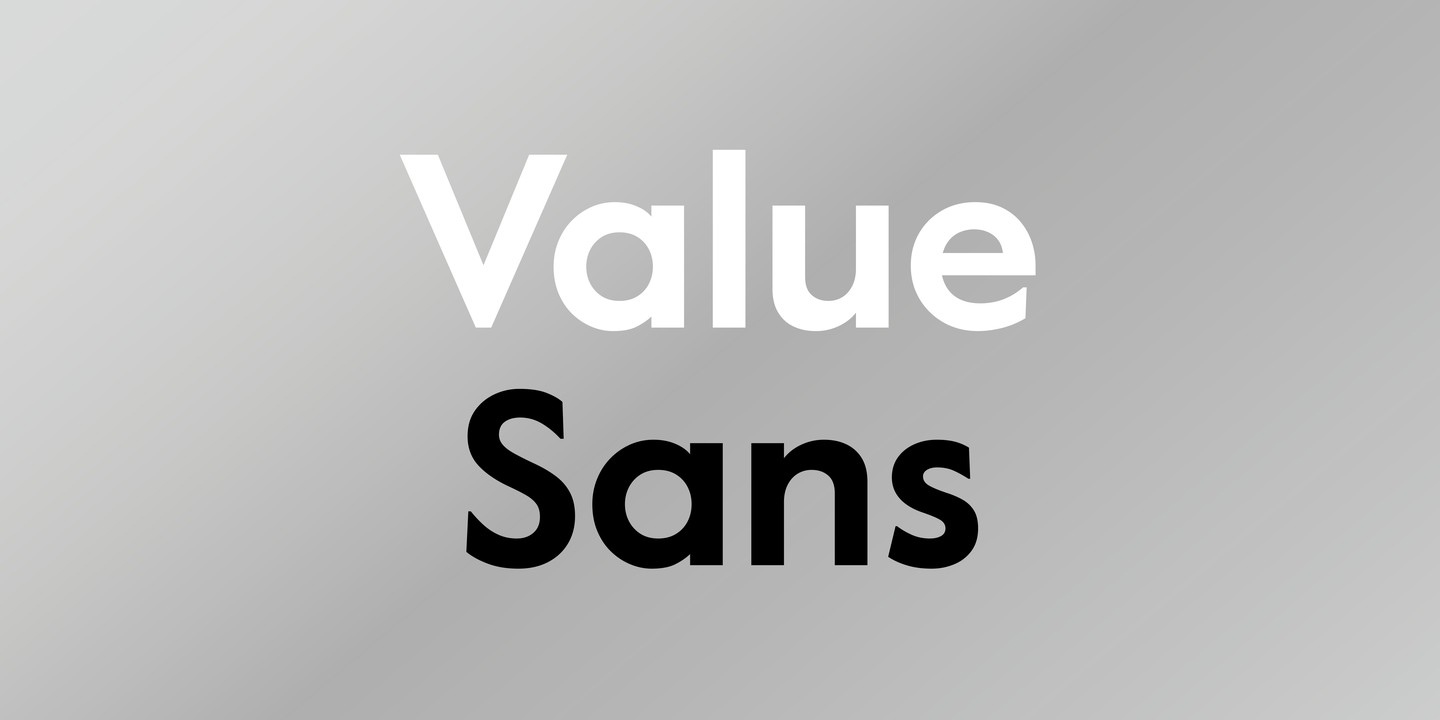
Value Sans Font
Value Sans Font is perfect for retail store branding, discount outlet signage, budget-friendly service marketing, affordable product packaging, value-oriented restaurant menus, cost-effective business solutions, economical shopping centers, and practical consumer communications. This reliable typeface excels in applications where affordability and trustworthy value are essential for creating accessible and appealing brand experiences that prioritize customer savings.
What makes Value Sans Font truly exciting is its honest embodiment of practical reliability and genuine affordability that speaks directly to cost-conscious consumers seeking quality without compromise. The font features clean, straightforward letterforms with efficient design and excellent legibility that demonstrate respect for both budget constraints and communication clarity. Its dependable personality and no-nonsense character create an immediate sense of trust and value that resonates with audiences seeking smart purchasing decisions and reliable service providers. The typeface's practical appeal and honest simplicity make it perfect for brands wanting to convey affordability, transparency, and connection to everyday consumers who prioritize value and practicality.
The Value Sans Font family includes multiple weights from Light to Bold, complemented by condensed versions that enhance its space-efficient versatility. The font offers comprehensive character sets with practical symbols, clear numerals, and broad multilingual support that enhance its accessible applications. Additional styling variations and cost-effective design elements provide designers with flexible tools for creating authentic value-focused brand systems and budget-conscious communications.